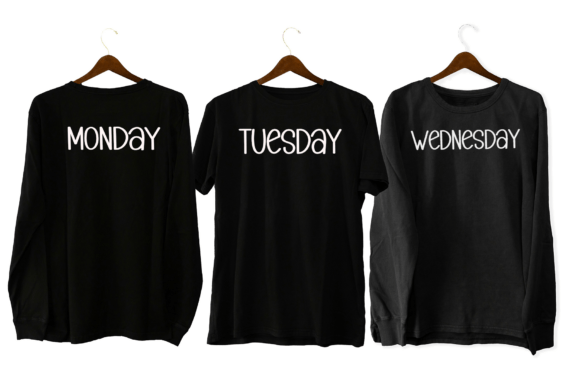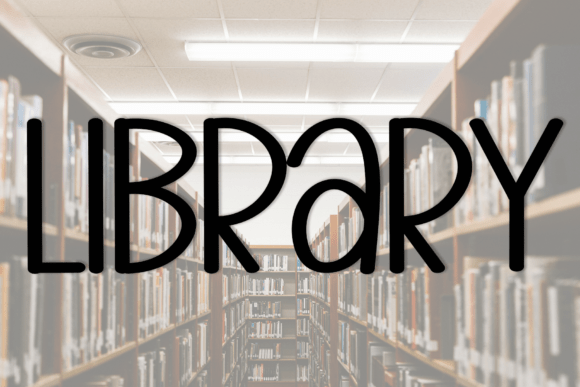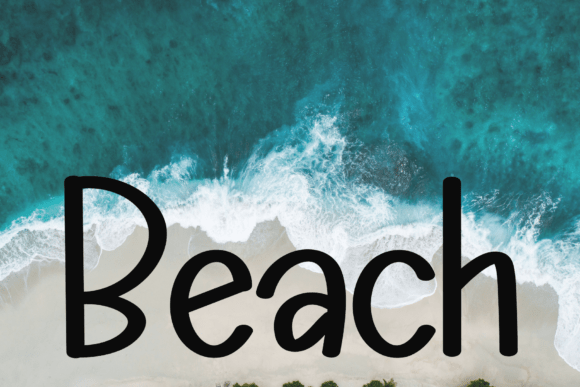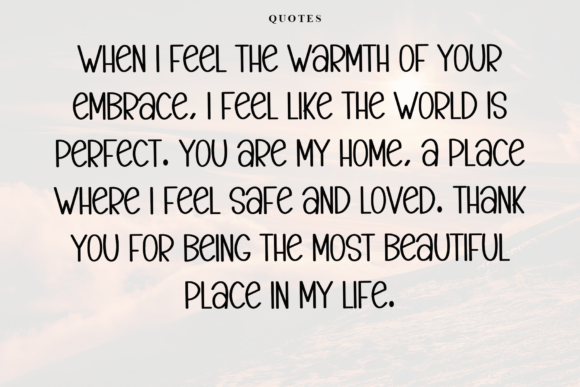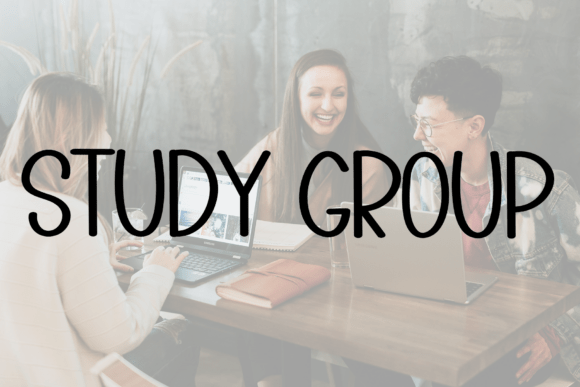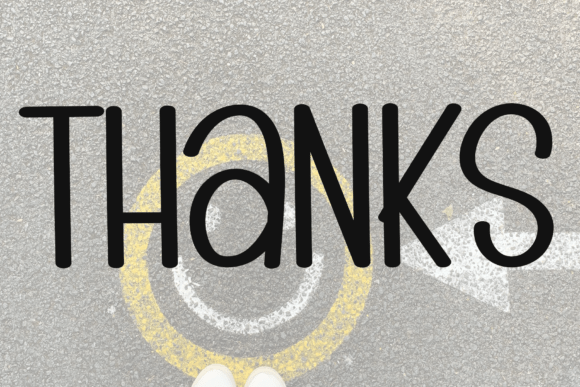
Introducing College Font: The Perfect Playful Companion for Your Creative Projects
Are you on the lookout for a font that exudes fun, celebration, and a dash of playfulness? Look no further than College Font, a delightful brush-handwritten typeface designed to bring a lively vibe to your designs. Whether you’re crafting birthday cards, party invitations, or any other joyful occasion, College Font is the perfect companion to add a personal and warm touch to your creations.
The Essence of College Font
College Font is a carefully crafted typeface that embodies the spirit of fun and celebration. Its lively strokes and casual style make it an ideal choice for designers and crafters who want to infuse their projects with a sense of playfulness and creativity. The font’s brush-handwritten feel gives it a unique, personal touch that sets it apart from more traditional fonts.
Perfect for Joyful Occasions
College Font is specifically designed to shine in joyful occasions. Here are some ways you can use this fantastic font:
- Birthday Cards: Add a personal touch to your birthday wishes with College Font’s lively and celebratory feel.
- Party Invitations: Create eye-catching invitations that set the tone for a fun and memorable event.
- Social Media Graphics: Use College Font to add a playful touch to your social media graphics, such as announcing special promotions or events.
- Crafting Projects: Bring a creative and personal touch to your crafting projects, such as scrapbooking, card making, or DIY decorations.
Why Choose College Font?
So, what makes College Font an excellent choice for designers and crafters? Here are some compelling reasons:
- Unique and Playful: College Font’s brush-handwritten style gives it a distinctive and playful feel that sets it apart from more traditional fonts.
- Easy to Read: Despite its playful nature, College Font remains easy to read, making it perfect for both digital and print applications.
- Versatile: College Font can be used in a wide range of projects, from digital graphics to print materials.
- Personal and Warm: The font’s personal and warm feel makes it perfect for projects that require a human touch.
Tips for Using College Font
To get the most out of College Font, here are some tips to keep in mind:
- Pair it with Other Fonts: Experiment with pairing College Font with other fonts to create a unique and visually appealing combination.
- Use it in Headlines: College Font’s playful nature makes it perfect for headlines and titles, where it can add a touch of personality and whimsy.
- Experiment with Colors: Don’t be afraid to experiment with different colors to find the perfect match for your project.
In conclusion, College Font is a fantastic addition to any designer’s or crafter’s toolkit. Its playful, brush-handwritten style makes it perfect for joyful occasions, and its personal and warm feel adds a creative touch to any project. Whether you’re crafting birthday cards, party invitations, or social media graphics, College Font is sure to bring a smile to your audience’s faces. So why not give it a try and see how it can elevate your designs?
With College Font, you can:
- Create unique and eye-catching designs that stand out from the crowd.
- Add a personal and warm touch to your projects.
- Bring a sense of fun and celebration to your designs.